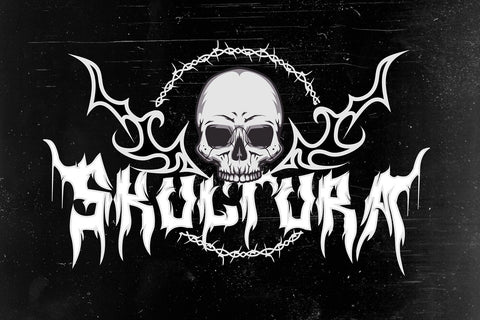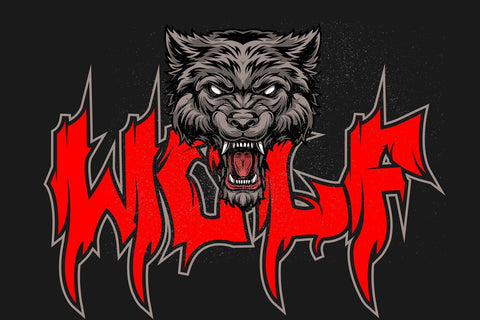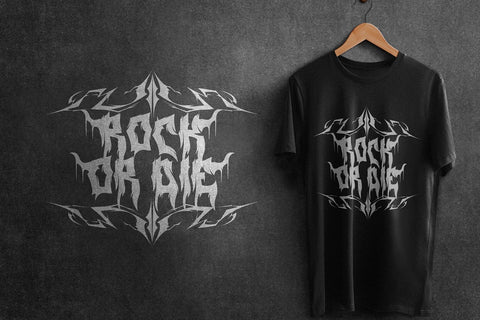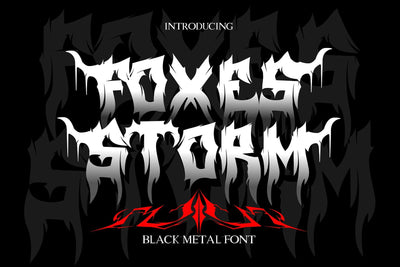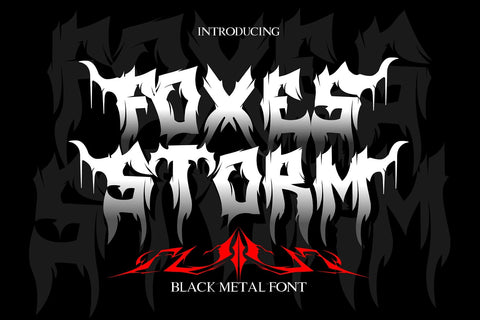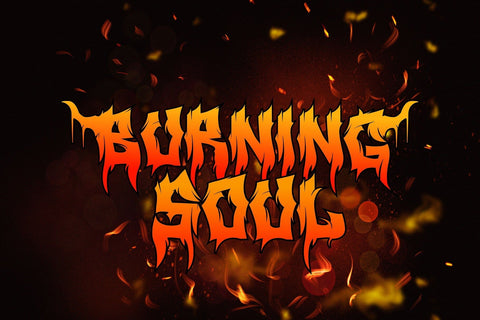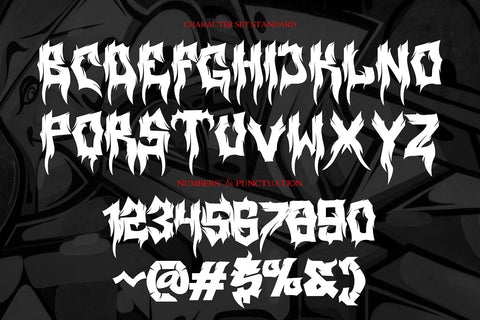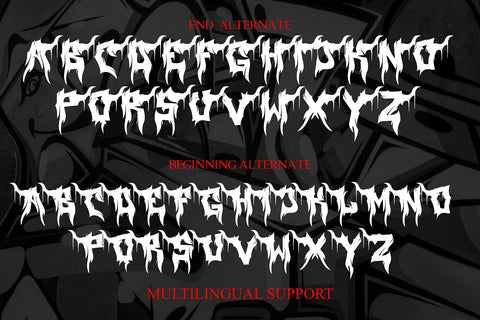
Foxes Storm - Blackmetal Font
"Foxes Storm" is a black metal-themed font with a menacing and scary look, making it perfect for a wide range of dark and horror-themed design projects. Whether you're designing a metal band's album cover, a horror movie poster or logo, or any other project that requires a dark and edgy aesthetic, "Foxes Storm" is the font you need. Its sharp and jagged letterforms, combined with the bold and intense appearance, make this font perfect for designs that require a powerful and impactful look. With "Foxes Storm," you can create designs that are both memorable and terrifying, bringing your dark and metal-inspired visions to life.